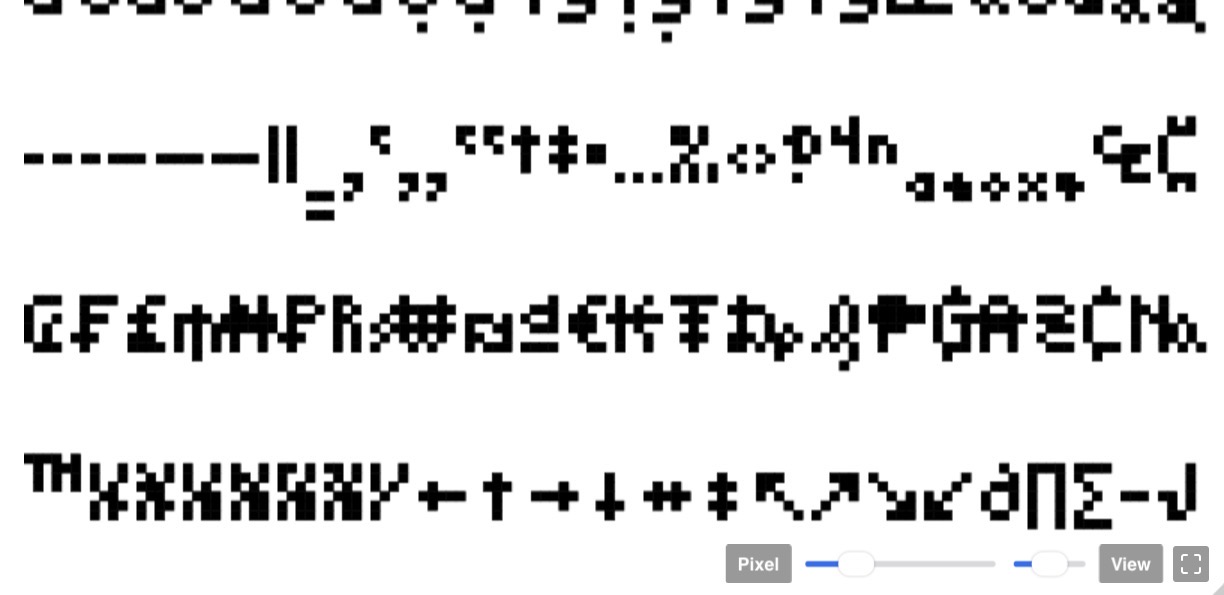
• A simple and clean pixel font. Dont mind the capital y.
ND=Not defined
And this time there is ACTUALLY a No-Break Space!!! AND full Latin Extended-D!!!!!! YAY!!!!!!!!!!!!!!!!!!!
And the reversed esh loop actually kind of looks good that way.
Originally named "The Unicode of the PIXEL," but I decided to rename it.
Note: Does NOT support some of the superscripts, subscripts, or Vulgar Fractions and all the other stuff, but WILL be added.